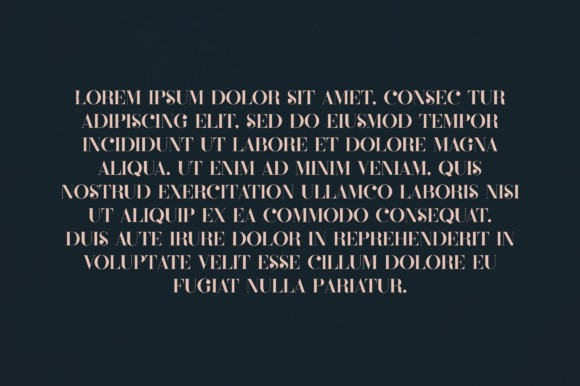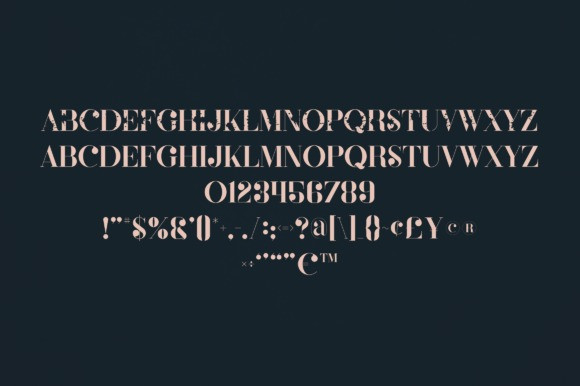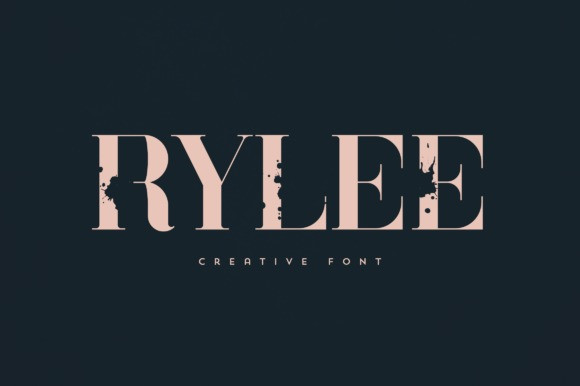
Rylee Font
Rylee Font is an elegant and versatile serif font that will make your typography truly unique! It will enchant every logo, branding, headline, or plain text!